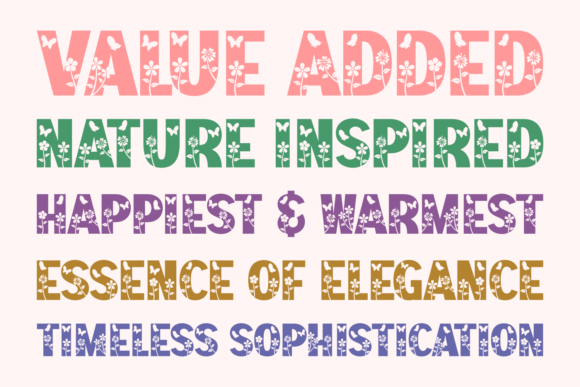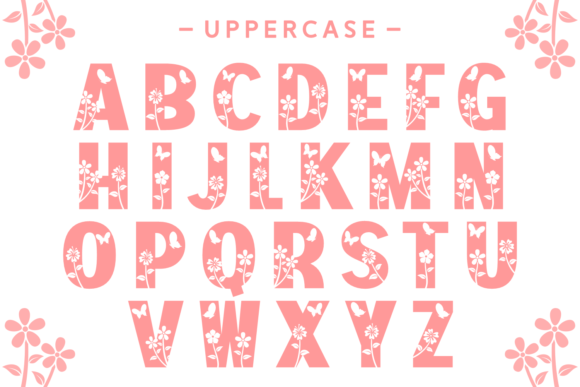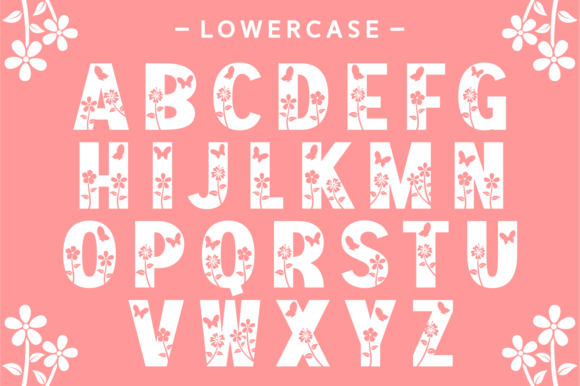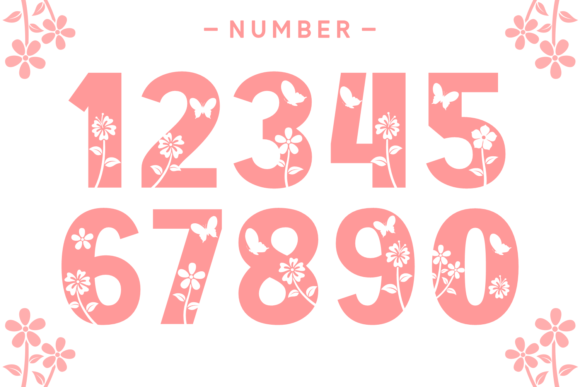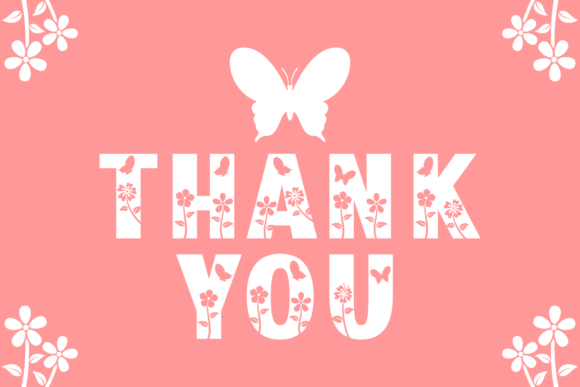
Introduction to Flopy Font
Flopy is a playful and spring-inspired decorative font.
You can see beautiful butterflies and flowers inside all characterโs set Set your imagination wild and create amazing Easter cards, wall art, frames, t-shirts, and logos.
Key Features of Flopy Font